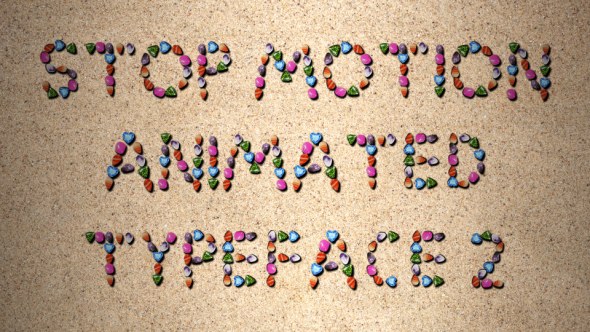
Stop Motion Typeface | After Effects Template
Here is a great Stop Motion Typeface which will give cool kids / cartoon / travel / business / restaurant style for your promo / advertising. Project contains full alphabet of animated letters, numbers and some extra symbols. You can also create own signs and change colors and size.See also:
- The full English alphabet from A – Z
- Numbers from 0 – 9
- Extra characters + – = ( )
- Each character individually animated